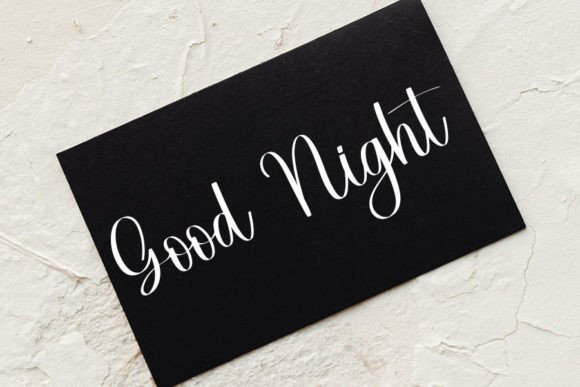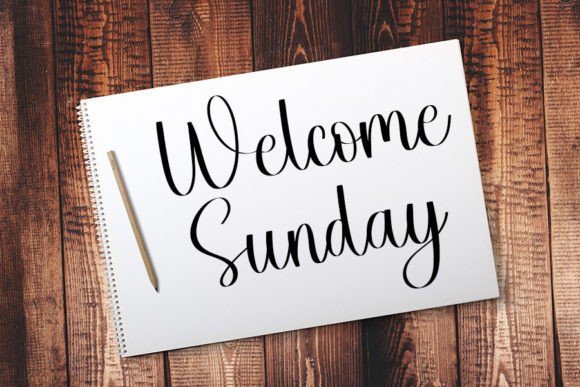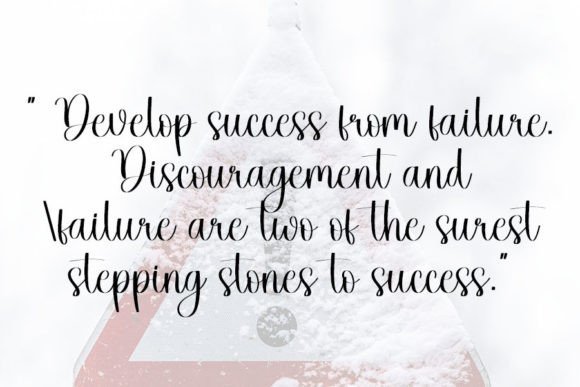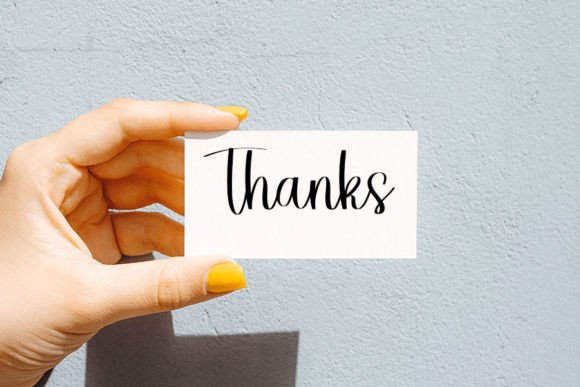
Introducing Caution Font: The Simple Handwritten Font for All Your Design Needs
Are you looking for a font that can add a touch of simplicity and naturalness to your designs? Look no further than Caution Font! This versatile font is perfect for a wide range of applications, from greeting cards to headlines, and is sure to become a staple in your design toolkit.
What is Caution Font?
Caution Font is a simple handwritten font that is designed to be easy to read and versatile. Its clean and natural lines make it perfect for a wide range of design projects, from digital to print. Whether you’re creating a greeting card, a headline, or a social media post, Caution Font is the perfect choice.
Key Features of Caution Font
- Simple and Handwritten: Caution Font is a handwritten font that is simple and easy to read. Its clean lines and natural flow make it perfect for a wide range of design projects.
- Versatile: Caution Font is a versatile font that can be used for a wide range of applications, from greeting cards to headlines, and even social media posts.
- Natural Feel: Caution Font has a natural feel that is perfect for designs that need a personal touch. Its handwritten lines and simple curves make it feel like it was written with a pen and paper.
Uses of Caution Font
Caution Font is a versatile font that can be used for a wide range of design projects. Here are some ideas to get you started:
- Greeting Cards: Caution Font is perfect for creating greeting cards for special occasions like birthdays, weddings, and holidays.
- Headlines: Caution Font can be used to create bold and eye-catching headlines for your blog posts, articles, and social media posts.
- Social Media Posts: Caution Font is perfect for creating social media posts that need a personal touch. Use it to create engaging posts that will stand out from the crowd.
- Branding: Caution Font can be used to create a unique and recognizable brand identity. Its simple and natural lines make it perfect for logos, business cards, and other branding materials.
Benefits of Using Caution Font
There are many benefits to using Caution Font in your design projects. Here are a few:
- Easy to Read: Caution Font is easy to read, even at small sizes. This makes it perfect for designs that need to be legible.
- Versatile: Caution Font can be used for a wide range of design projects, from digital to print.
- Unique: Caution Font has a unique and recognizable style that will set your designs apart from the crowd.
Tips for Using Caution Font
Here are a few tips for using Caution Font in your design projects:
- Use it with a Personal Touch: Caution Font is perfect for designs that need a personal touch. Use it to create designs that feel like they were written with a pen and paper.
- Experiment with Colors: Caution Font looks great in a variety of colors. Experiment with different colors to find the one that works best for your design.
- Pair it with Other Fonts: Caution Font can be paired with other fonts to create a unique and interesting design. Try pairing it with a bold font for a striking contrast.
Caution Font is a simple handwritten font that is perfect for a wide range of design projects. Its clean and natural lines make it easy to read and versatile. Whether you’re creating a greeting card, a headline, or a social media post, Caution Font is the perfect choice. With its unique and recognizable style, it’s sure to become a staple in your design toolkit.